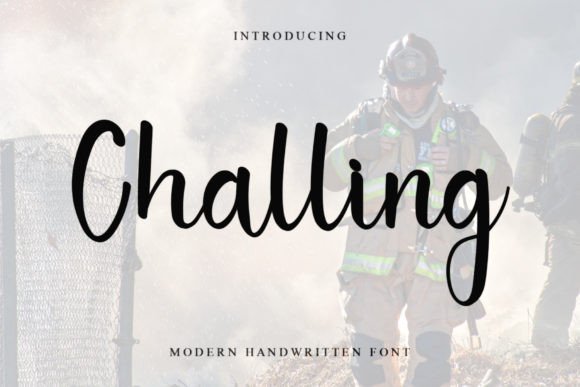
The Perfect Touch of Whimsy: Challing Font
Have you ever been in the midst of a design project, pouring over fonts and styles, and suddenly you see it – that one font that brings everything together? For designers, this moment is pure magic, and it’s exactly what happens when you discover the Challing Font. This elegant handwritten font is a breath of fresh air, adding a touch of whimsy and sophistication to any project.
With its unique blend of modern and classic elements, the Challing Font is perfect for designers looking to add a personal touch to their work. Whether you’re creating a logo, a brochure, or a social media graphic, this font is sure to elevate your design to the next level. Its distinct style is timeless, making it a valuable addition to any designer’s toolkit.
Challing Font Key Features
- Font Family: Challing is a unique, hand-drawn font family designed for display and text use.
- Character Count: Challing font family includes a wide range of characters, including uppercase and lowercase letters, numerals, punctuation marks, and special characters.
- Unique Characteristics: Challing font features a distinctive, handwritten feel with subtle imperfections, giving it a unique and artistic touch.
Challing Font Review
At first glance, the Challing font seems to be a unique and eye-catching option for designers looking to add some flair to their projects. ✨
- Distinctive and bold design, perfect for headlines or titles.
- Highly legible, even at small font sizes.
- Supports a wide range of languages, making it a great choice for international projects.
- May not be suitable for body text due to its bold nature, which can be overwhelming for large amounts of text.
- Lacks a clear font pairing option, which can make it difficult to create a cohesive design.
The Challing font is a great option for designers who want to add a bold, eye-catching element to their projects. However, it may not be the best choice for projects that require a lot of body text or a more subtle design approach. With some careful consideration and planning, the Challing font can be a valuable addition to any designer’s toolkit.
Challing Font is a versatile font that can be used in various design projects, including:
– Headings and titles
– Body text
– Logos and branding
– Infographics and charts
Alternatives to Challing Font
Playfair Display is a luxurious and elegant serif font perfect for titles, headings, and other high-end design elements. It features intricate details and ornate flourishes, making it ideal for formal or high-end branding, advertising, and editorial designs.
Comparison to Challing Font: While Challing Font is a modern sans-serif font, Playfair Display is a traditional serif font with a more classic and sophisticated look. Playfair Display is better suited for formal designs, while Challing Font is more versatile and can be used for a wide range of applications.
Open Sans is a clean and modern sans-serif font that is highly legible and versatile. It is perfect for body text, titles, and headings, making it a great choice for digital products, websites, and mobile apps.
Comparison to Challing Font: While both fonts are modern and clean, Open Sans is more straightforward and lacks the unique flair of Challing Font. Open Sans is better suited for digital applications, while Challing Font is more suitable for print or branding designs.